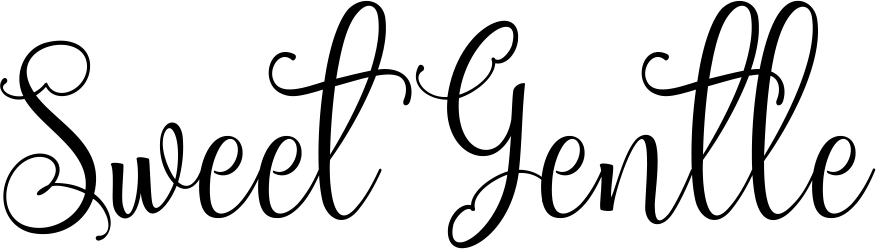
Sweet Gentle Font
There are a lot of projects like websites, fashion magazines, packaging, and logos and you can use a font that is creative and cute with a little bit of artistic style. If you are looking for something like that then we suggest Sweet Gentle which is a free dream font.
This whimsical tattoo font contains both the uppercase and lowercase of the alphabets and punctuation marks and there are no numbers. By the way, the readability of this font isn’t great.